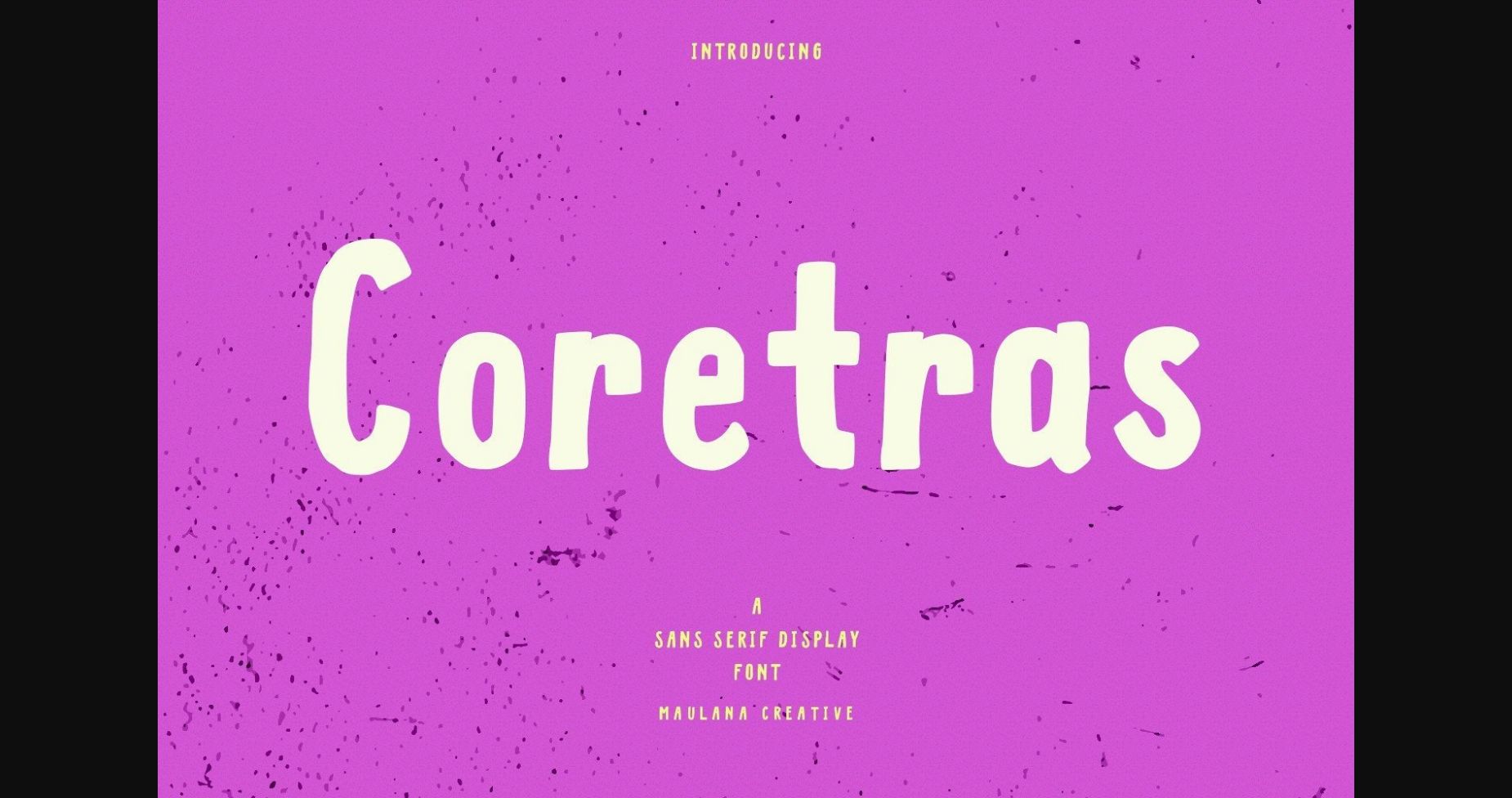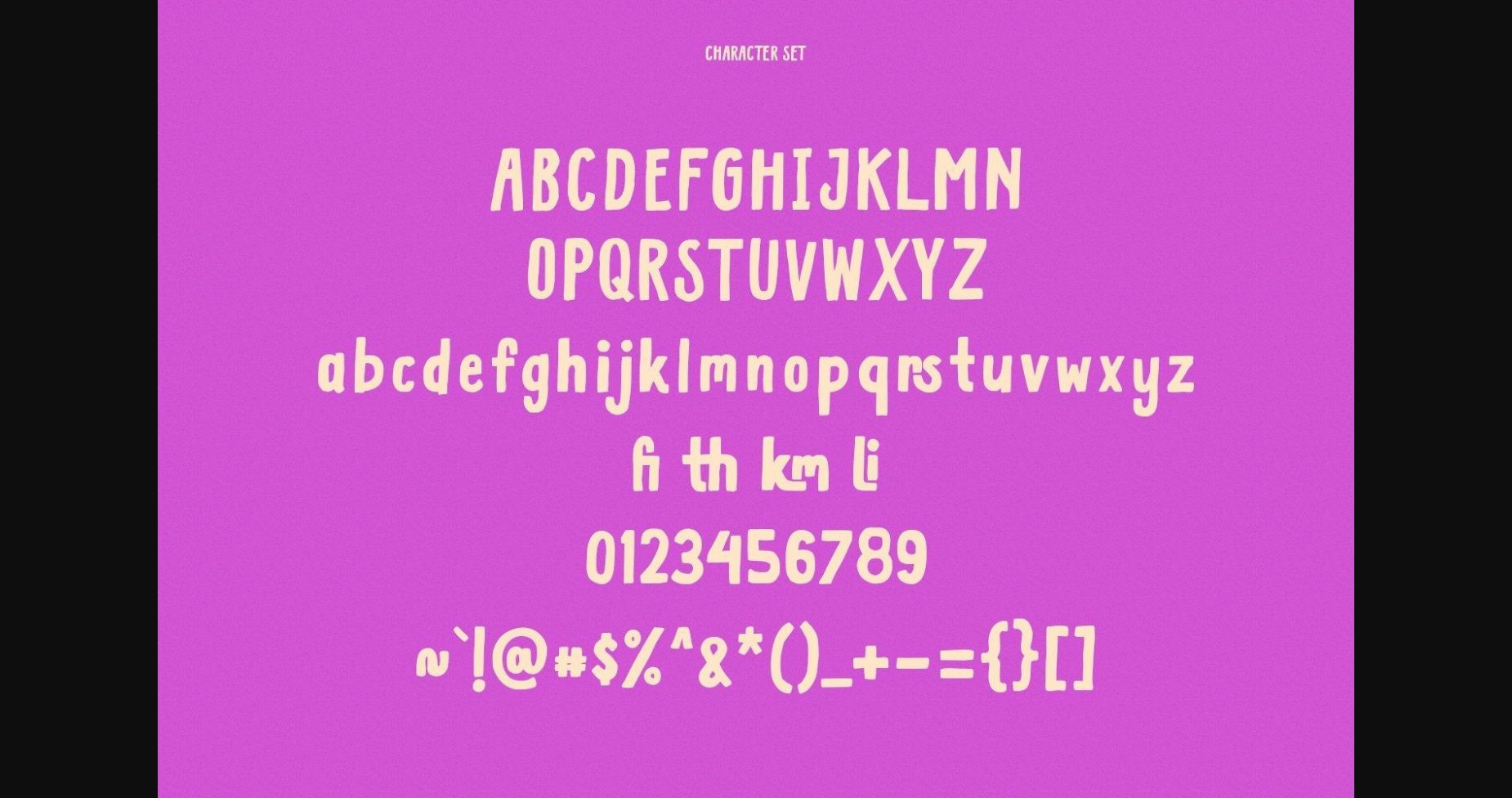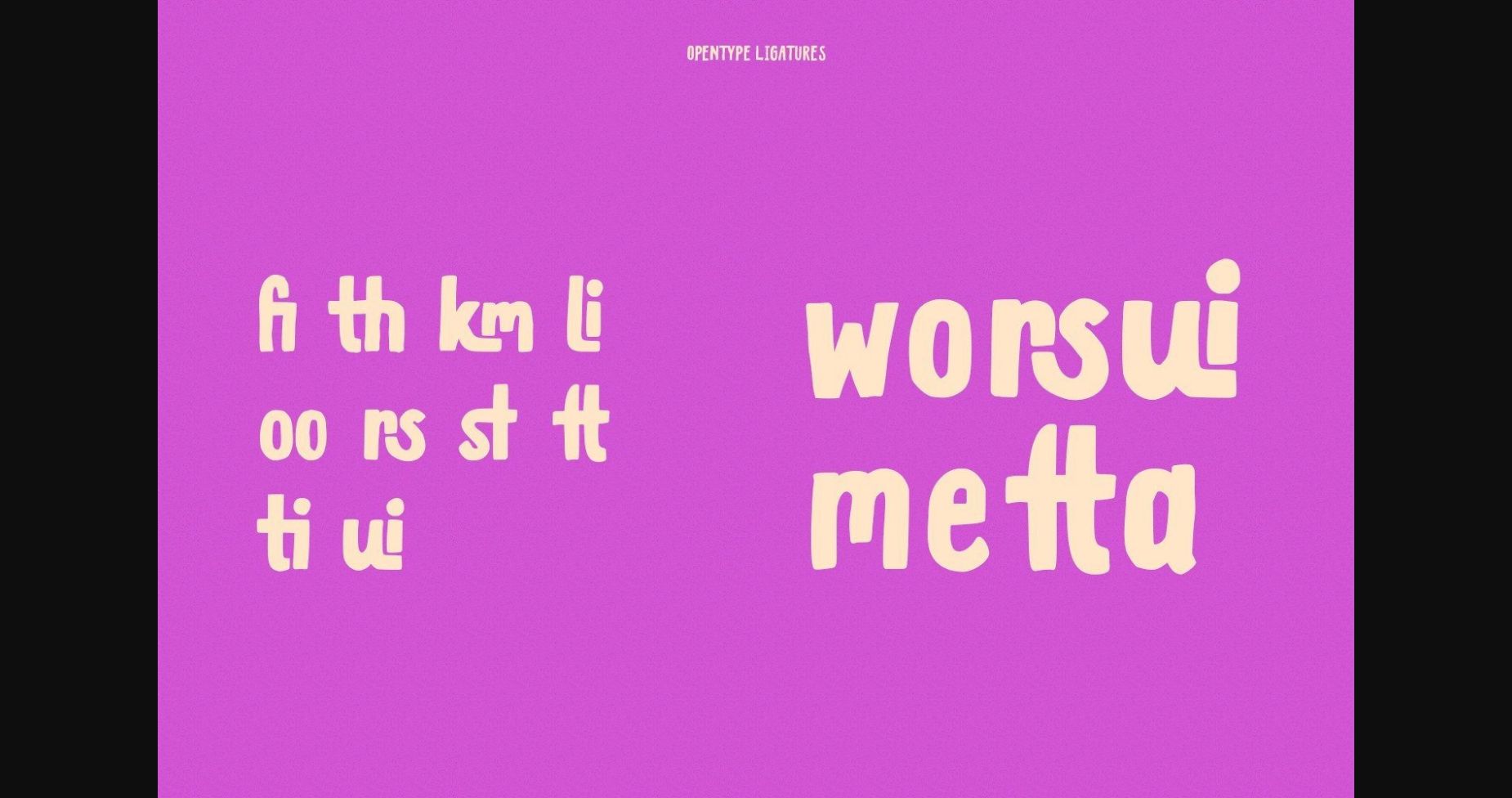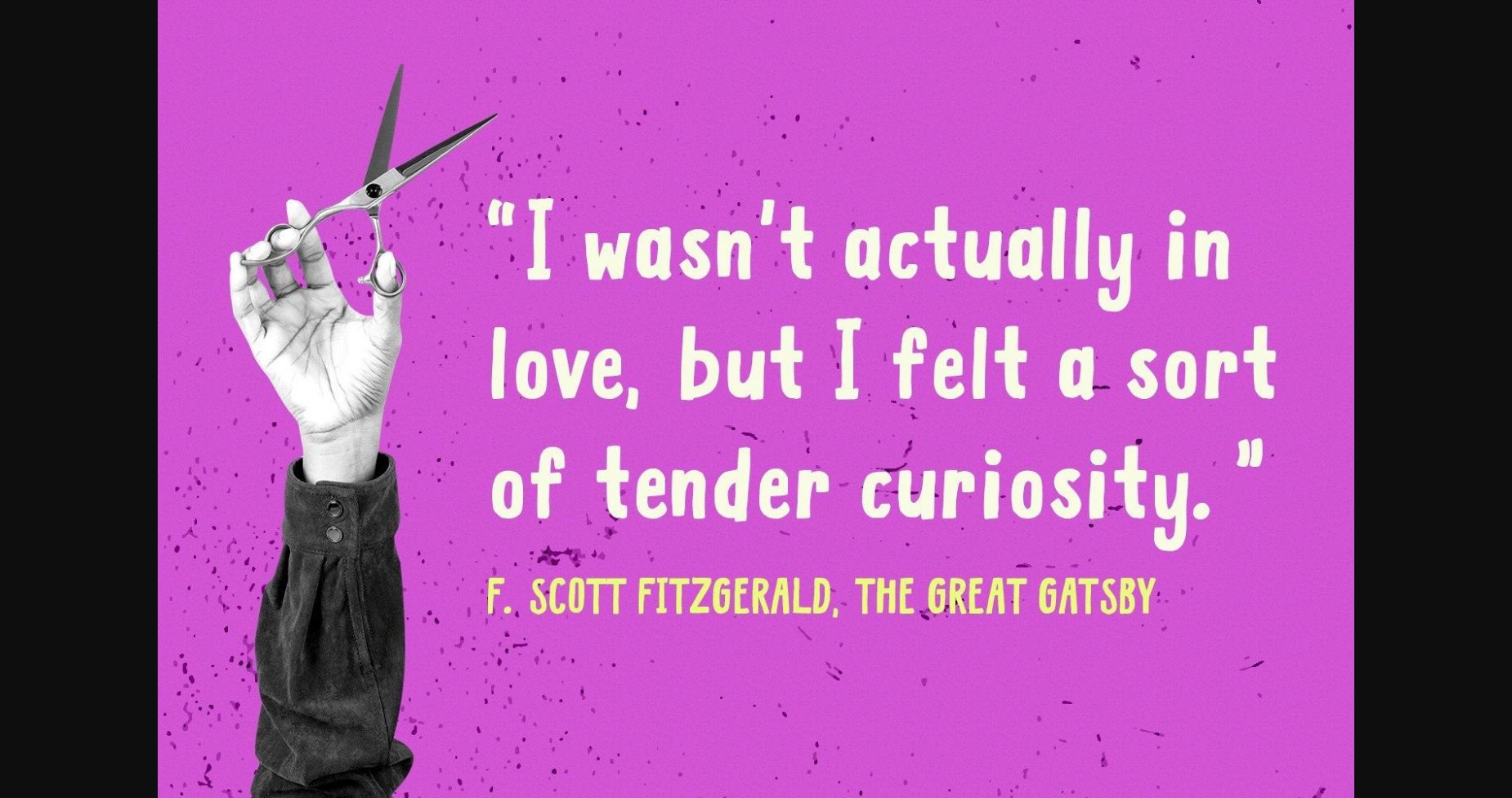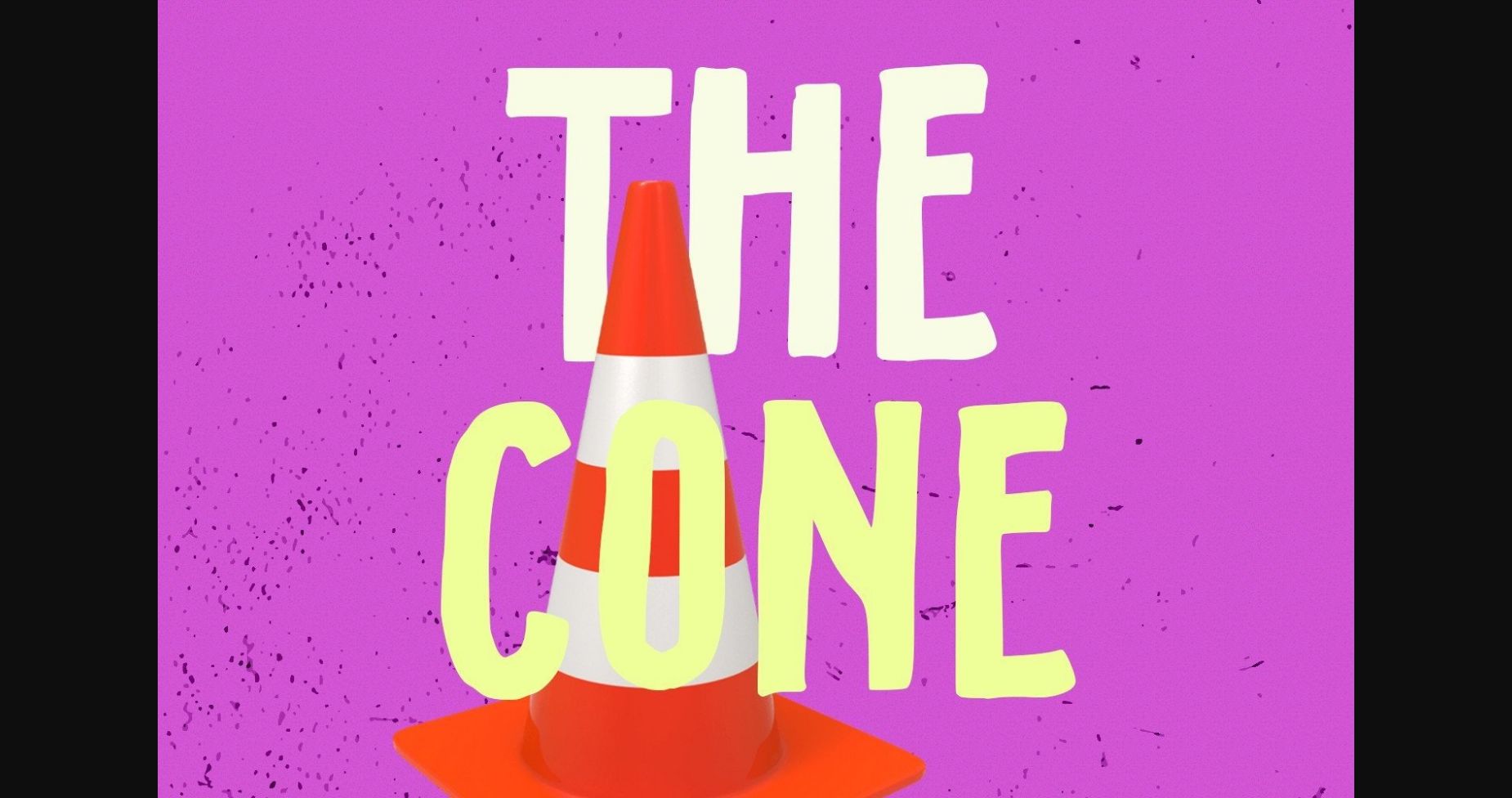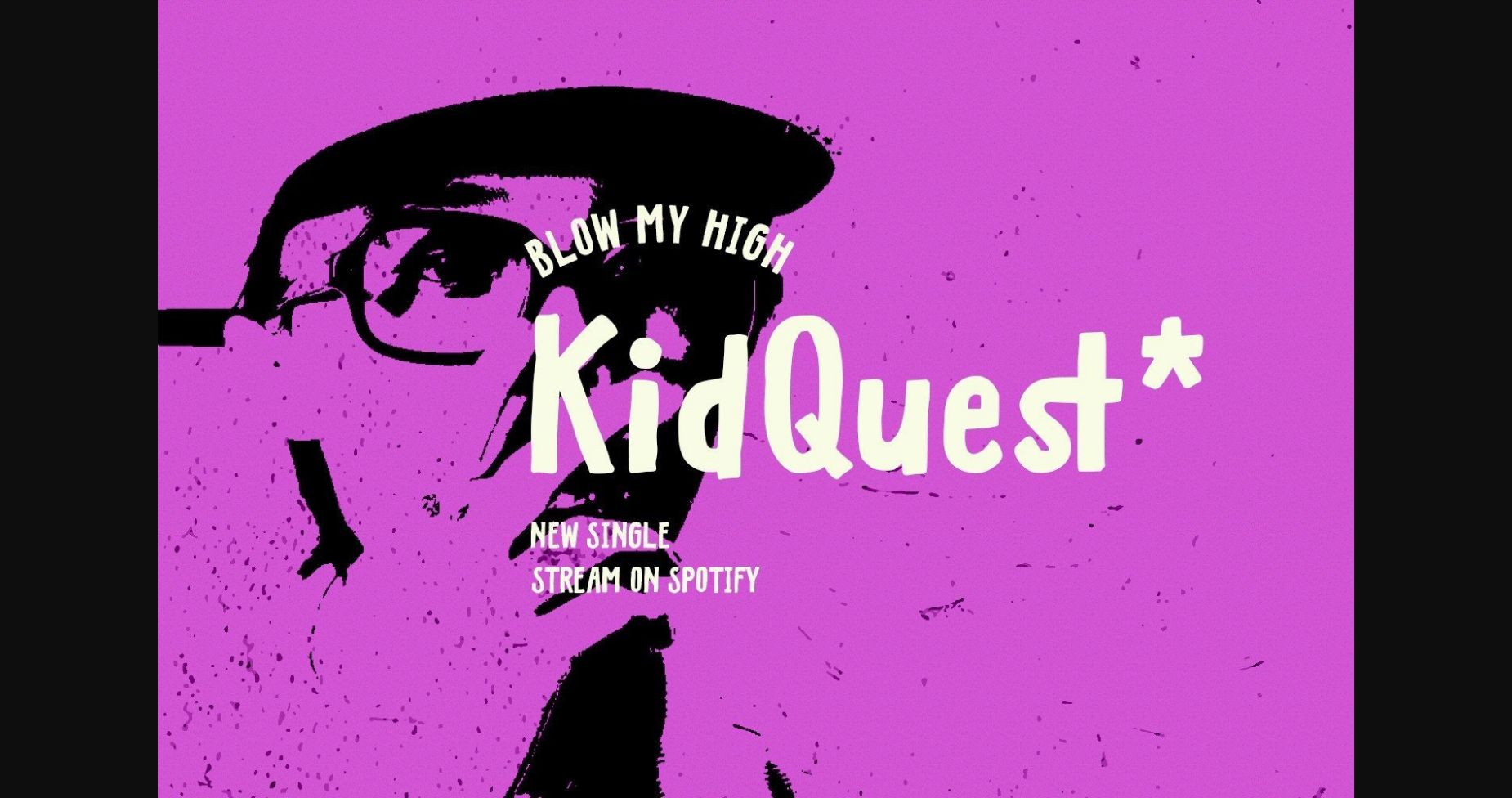
About Coretras Font
Coretras is an organic handwritten sans serif font. With bold brush stroke, fun character with a bit of ligature. To give you extra creative work. . This font is good for logo design, Social media, Movie Titles, Books Titles, short text even long text letters and good for your secondary text font with sans or serif. Make stunning work with Coretras font.